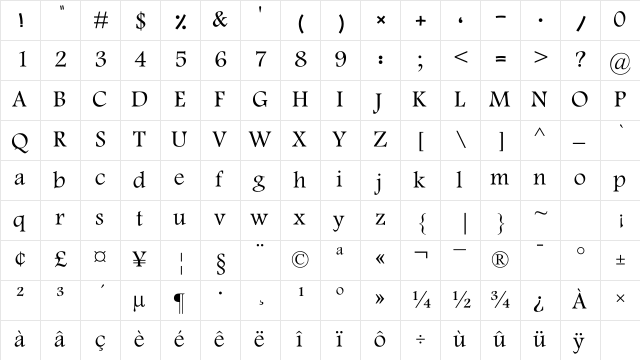
arabswell_1 Regular
Design Context for arabswell_1 Typeface
arabswell_1 is a composed and adaptable typeface that performs quietly and consistently across a wide range of design contexts.